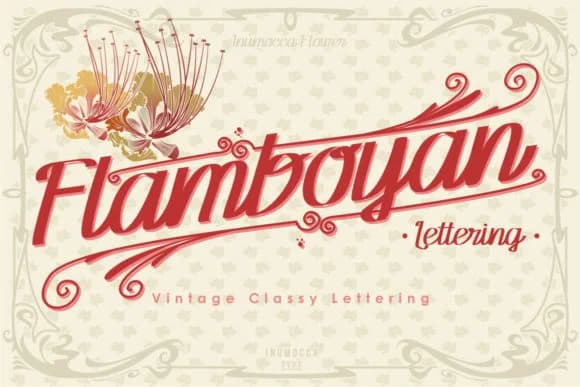
Picture yourself designing a wedding invitation suite with flowing, elegant letterforms that still feel personal rather than generic. That's what Flamboyan by inumocca_type brings to the table: a handwritten script with ornate swashes that captures genuine penmanship without losing readability.
The script excels at larger sizes where its flourishes come into their own and draw real attention. You'll find it works beautifully for luxury greeting cards, boutique beauty product packaging, and rustic wedding stationery suites. At smaller scales it remains legible, making it suitable for artisanal product labels on Etsy and craft packaging, too. The handwritten quality means each letter carries the warmth of actual penmanship, but with the consistency that digital lettering provides.
The script includes multiple swash variations that let you add personality to headlines or stand-alone words. This flexibility keeps your designs from feeling uniform, and the letterforms maintain their character even when used across different sizes. It's built to handle the weight shifts that characterize genuine handwriting, adding authentic movement to titles and display text. Find Flamboyan on Creative Fabrica to start exploring what these swashes can do for your next project.
- Elegant, Flowing, Flamboyan
Flamboyan Font is a script font that shines as a display or heading face. Pair it with a clean sans-serif or serif font for body text β the contrast creates a clear hierarchy while the two styles stay balanced and easy to read.